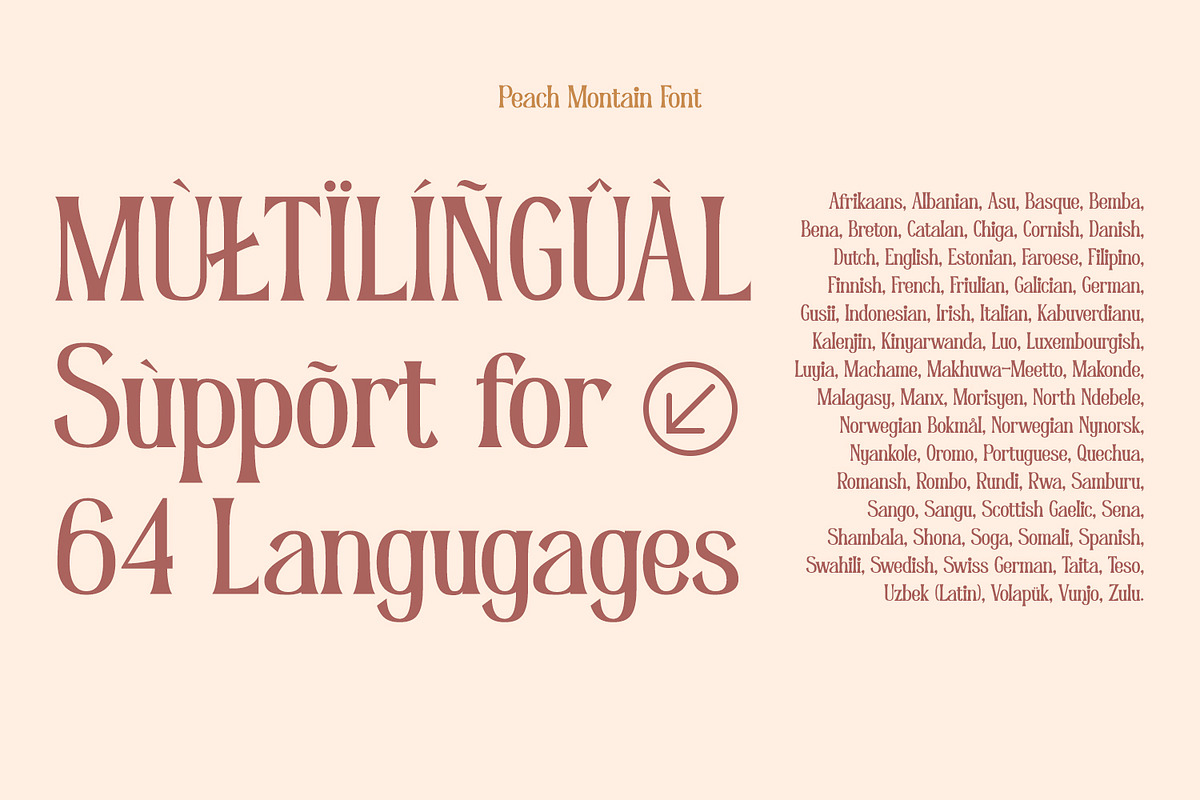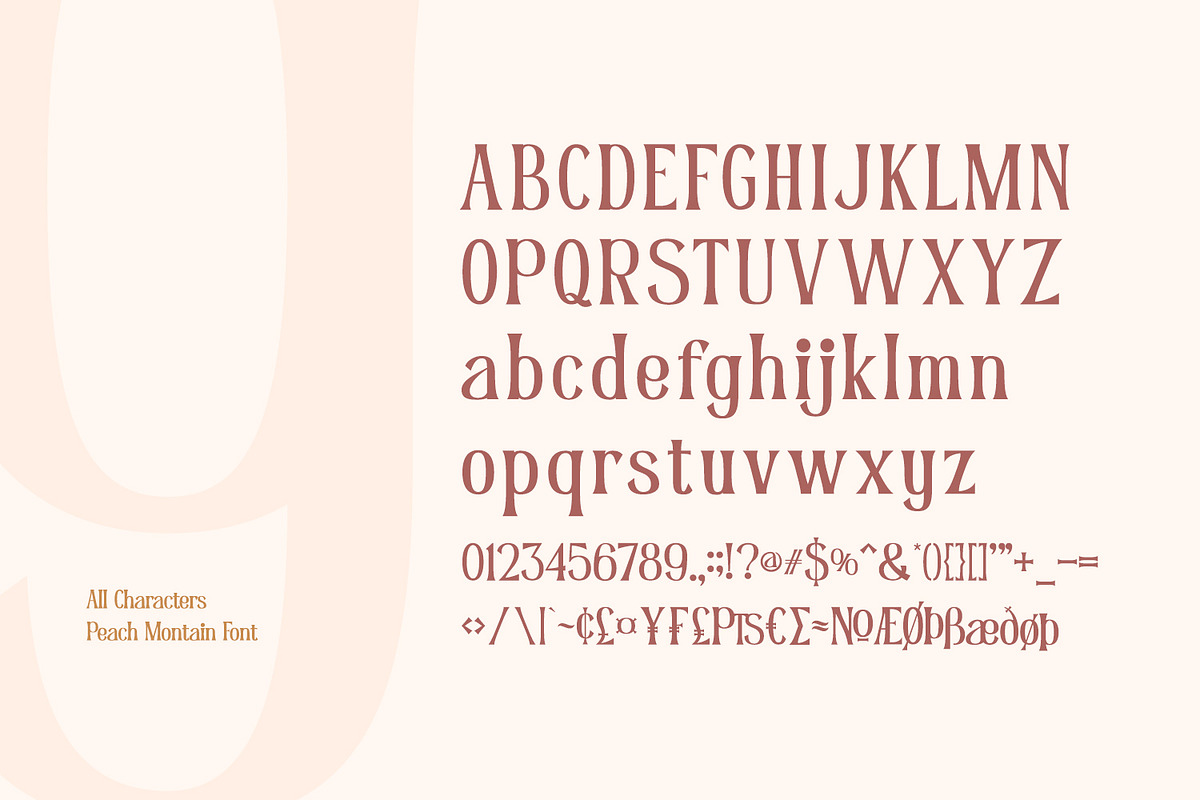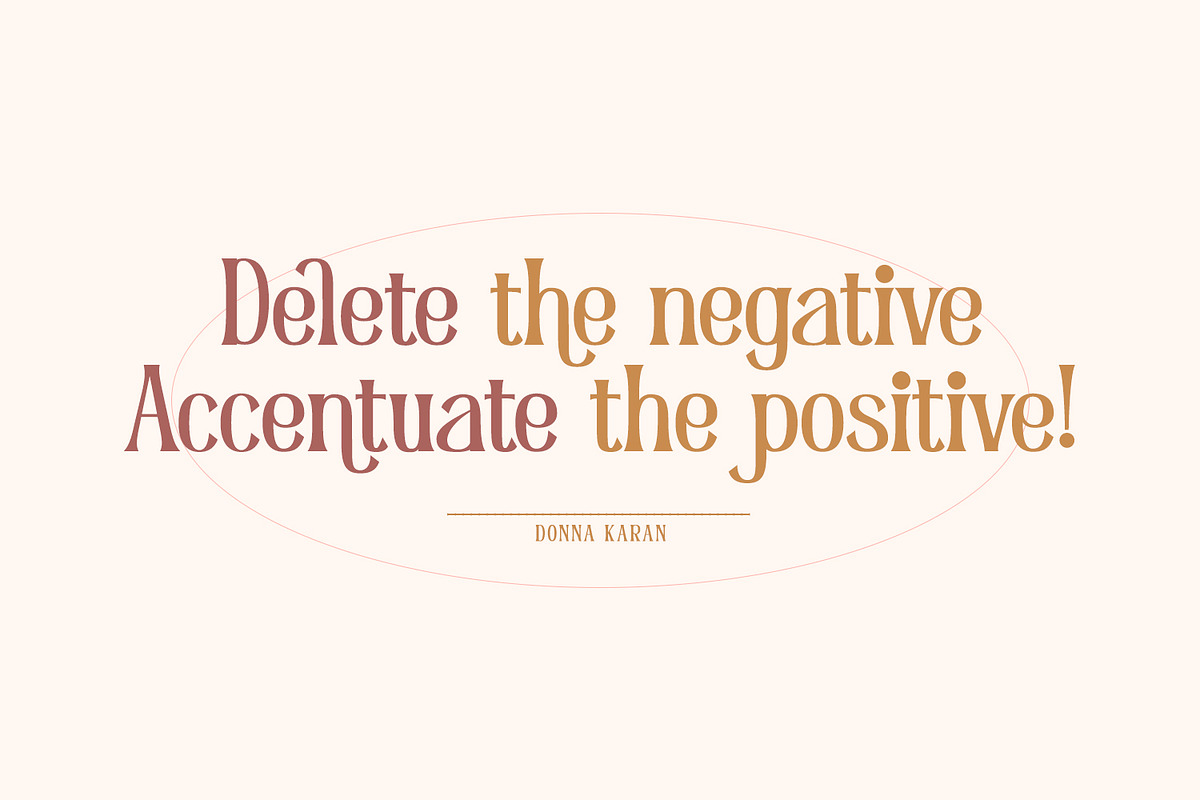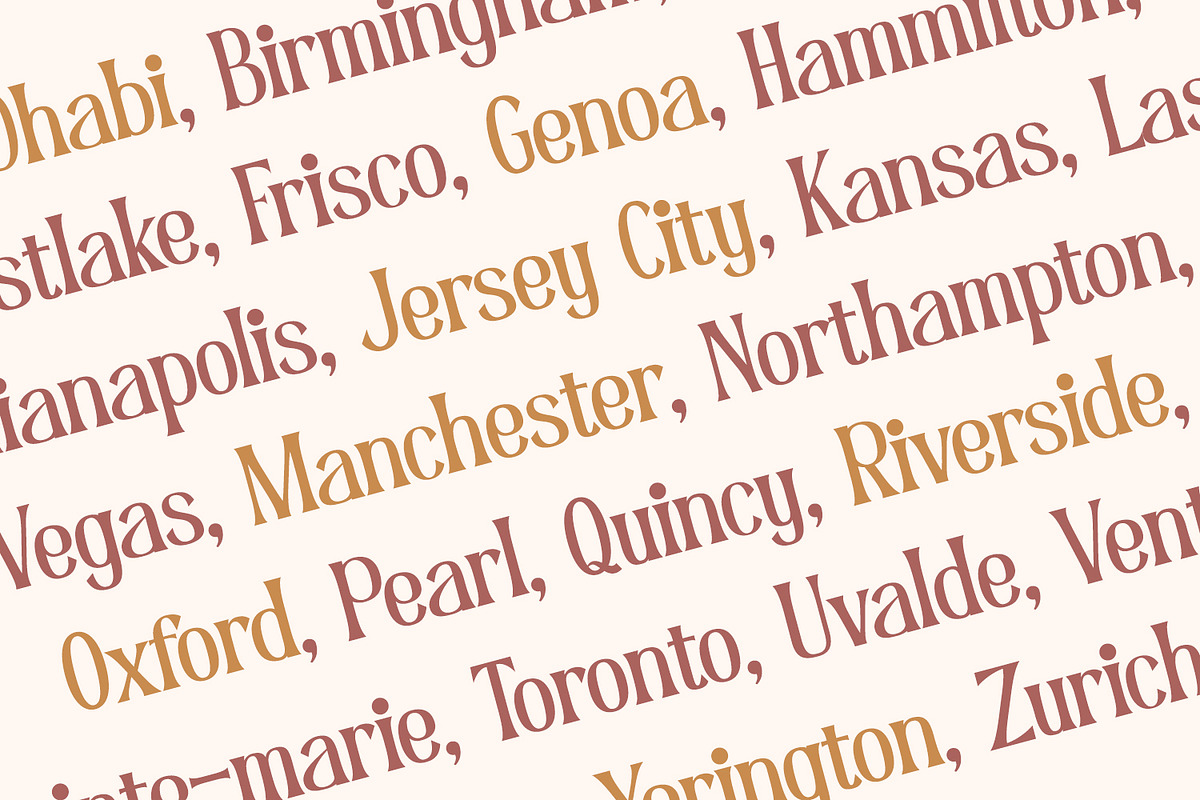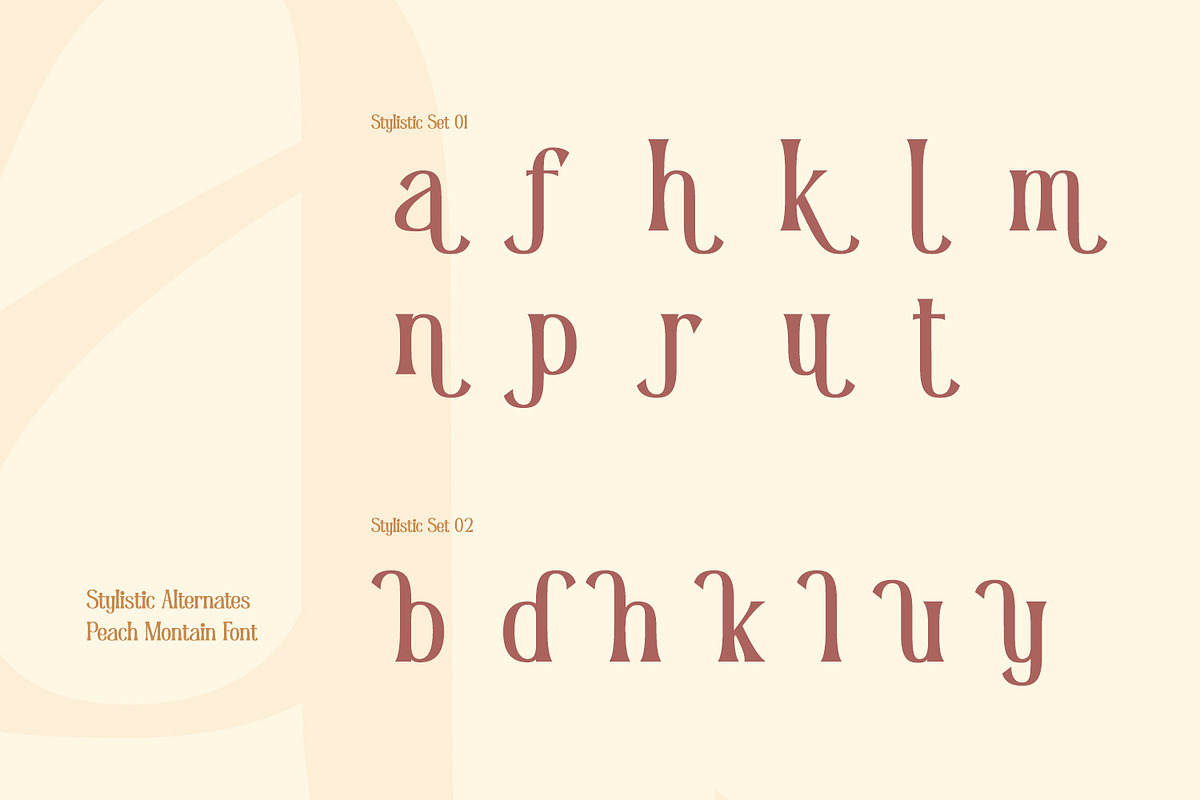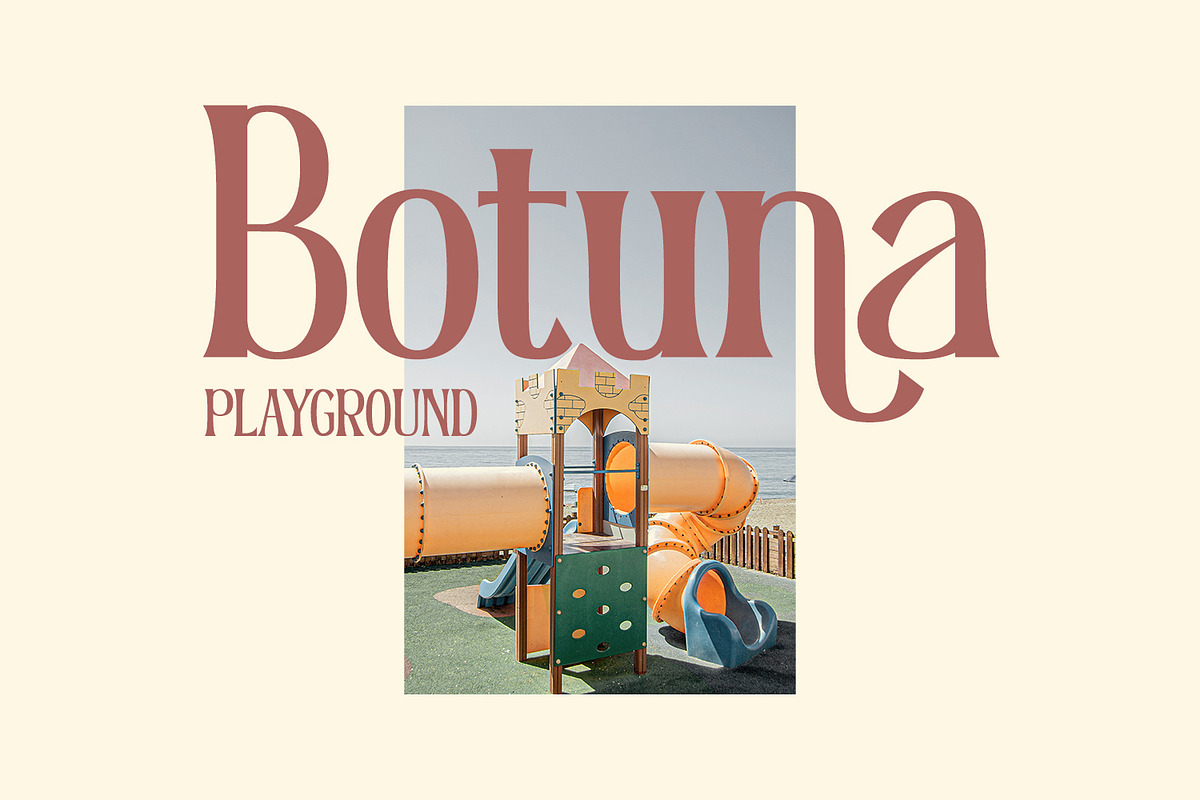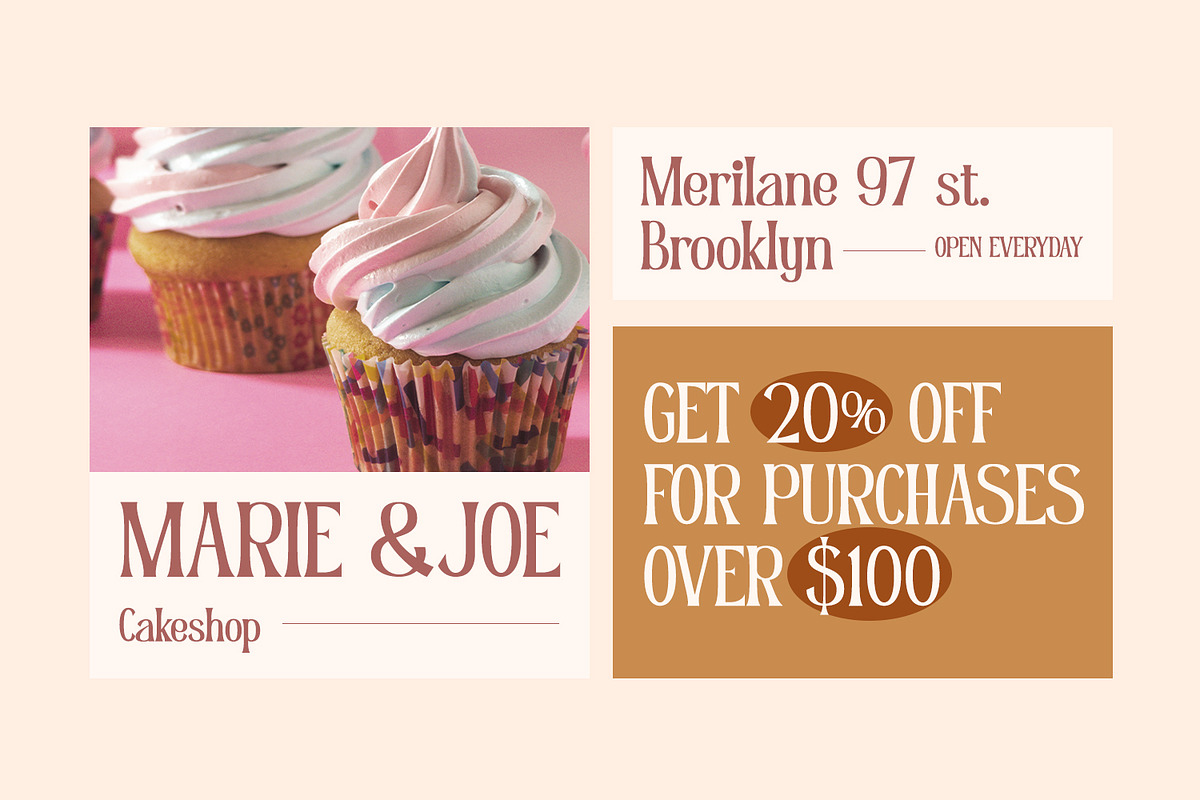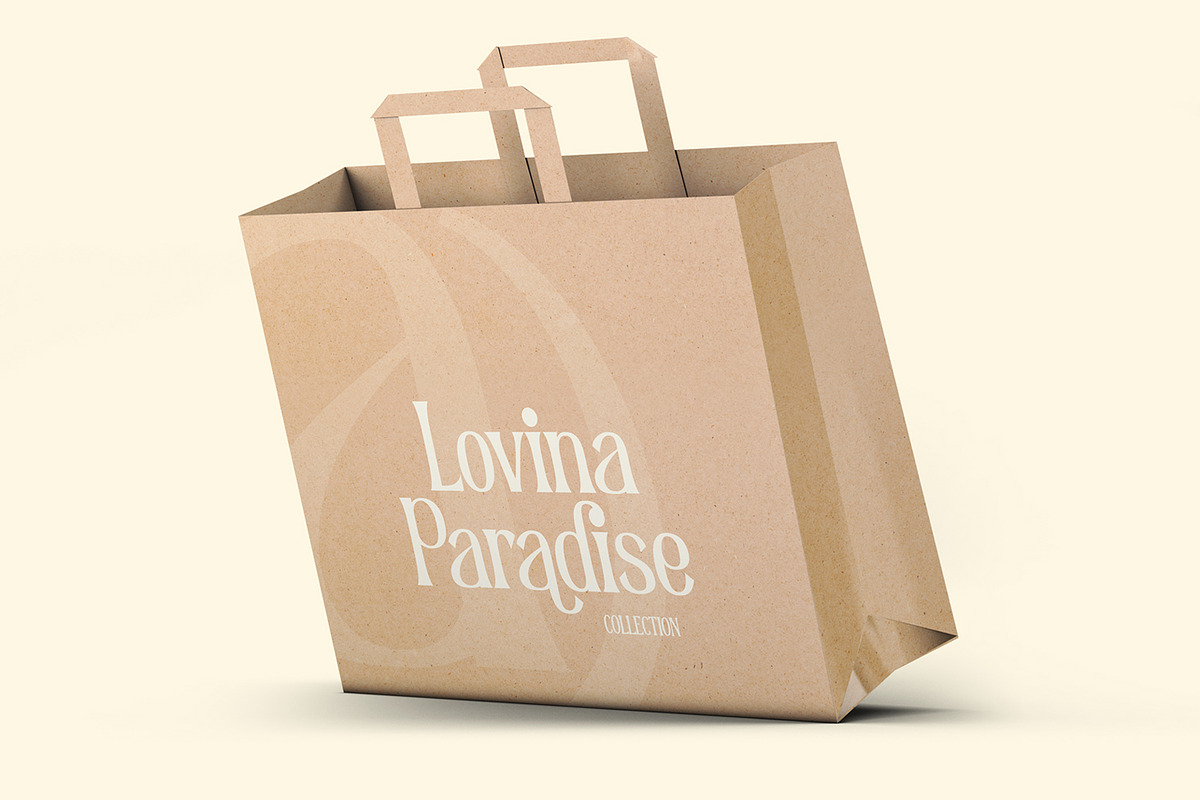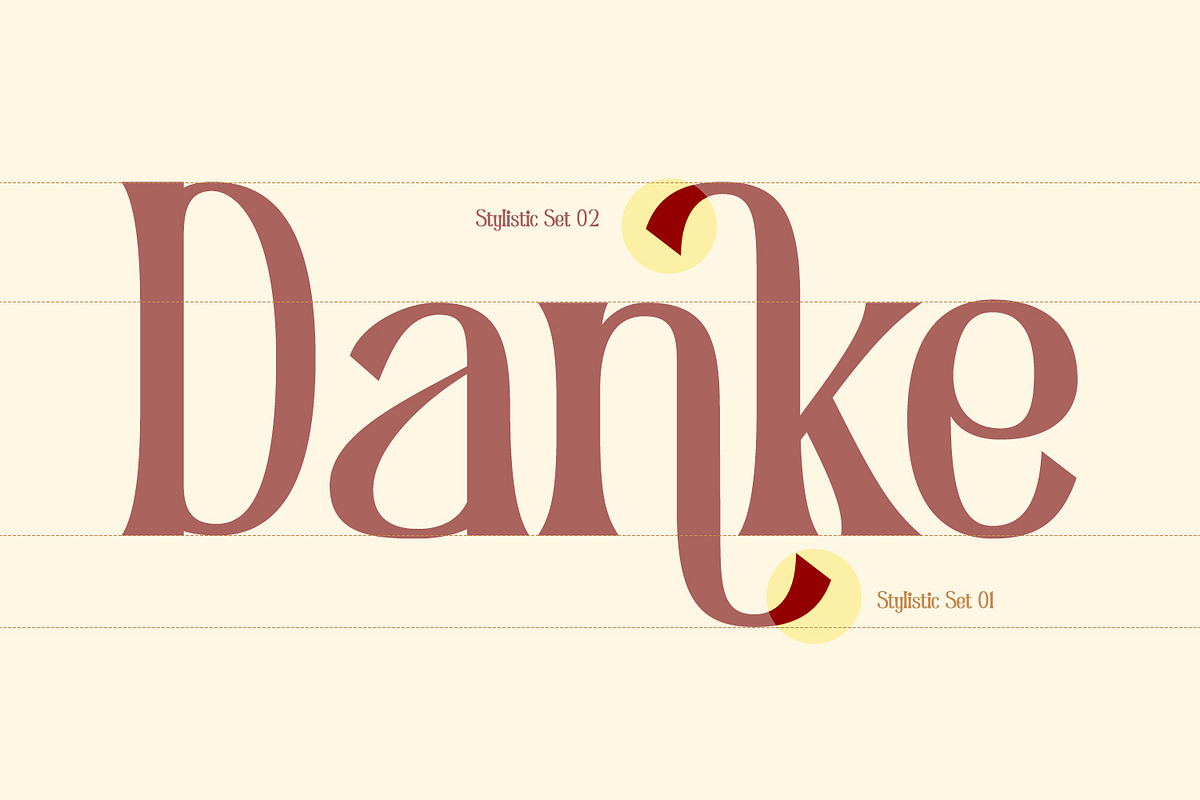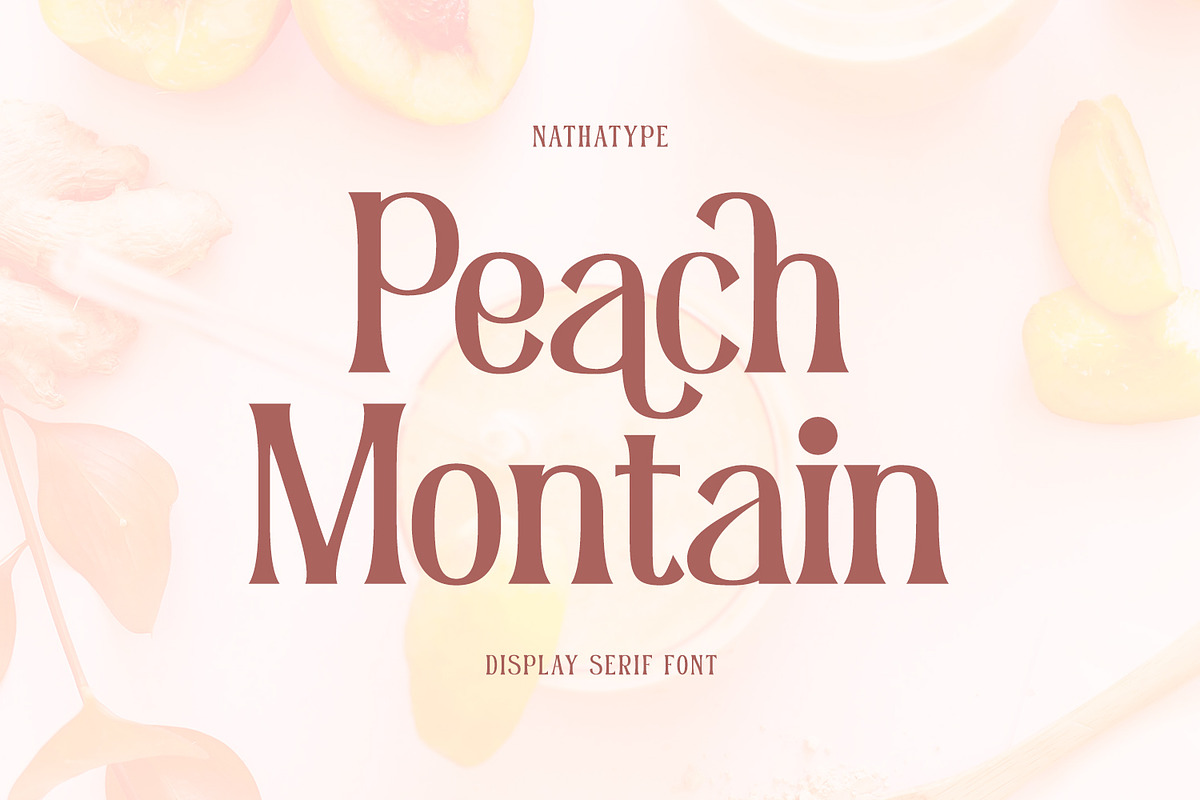
Peach Montain
Peach Mountain is an elegant, modern, multipurpose display serif font needed by designers today. The simple letters’ morphology has relatively similar proportions. Furthermore, its high contrasts and wide spaces are truly legible with which you can apply for any text sizes. In addition, you can make use of this font’s available interesting features to beautify your designs.
- Stylistic Sets
Peach Mountain fits best for various design projects, such as posters, banners, logos, magazine covers, quotes, headings, printed products, invitations, name cards, merchandise, social media, etc. Find out more ways to use this font by taking a look at the font preview.